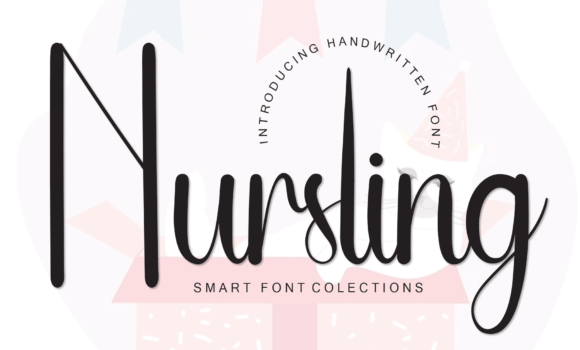
nursling
Nursling Font – Free Download Introduction to Nursling Font Nursling is a sweet and friendly handwritten font. 📸 Preview Gallery 6 images 📌 Product Name Nursling Font 👤 Author william jhordy 📂 Category Explore ⬇️ Download Nursling Font FREE Free